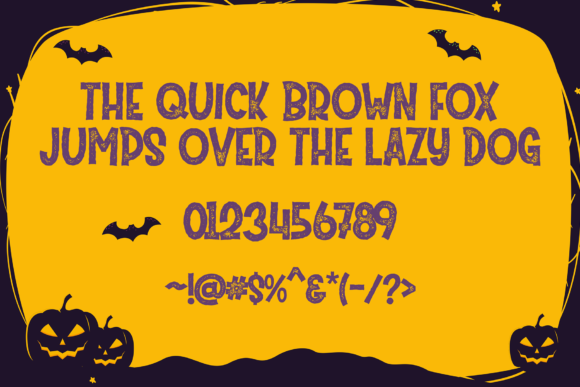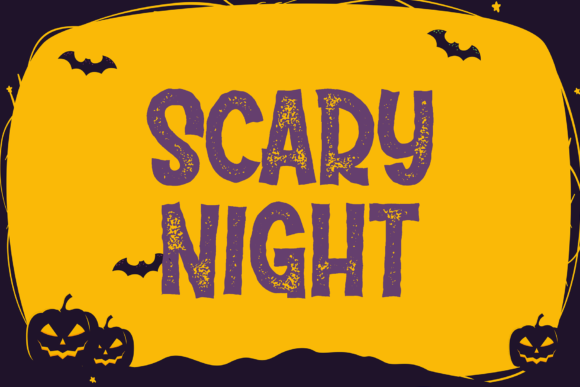
Introduction to Mister Pumpkins Aged Font
As the clock strikes midnight on a crisp autumn evening, the air is filled with the sweet scent of pumpkin spice and the sound of leaves crunching beneath your feet. It’s a moment that sparks creativity, a time to let your imagination run wild and conjure up the magic of the spookiest time of the year. And what better way to capture that essence than with a font that embodies the spirit of Halloween?
Enter Mister Pumpkins Aged Font, a stunning display font that will elevate your creative project to new heights. With its high-quality design and transparent background, this font is a must-have for any designer looking to add a touch of macabre charm to their work. Whether you’re working on a spooky poster, a Halloween-themed website, or a free download for a creative community, Mister Pumpkins Aged Font is the perfect design resource to get you started.
Key Features of Mister Pumpkins Aged Font
- High-quality font with a unique, aged design, perfect for creative projects that require a vintage touch.
- Unique characteristics include distressed textures and subtle wear, adding depth and character to any design.
- Ideal for use in various creative projects, such as graphic design, digital art, and typography-based designs, where a high-quality, aged font is required.
Honest Review: Mister Pumpkins Aged Font
As a designer, I’m always on the lookout for high-quality design resources that can elevate my creative projects. Recently, I stumbled upon the Mister Pumpkins Aged Font, and I’m excited to share my honest review with you.
What works well: ✨ The font has a unique, distressed look that adds a touch of vintage charm to any design. It’s perfect for creating a warm and inviting atmosphere in your project. The high-quality design and transparent background make it easy to use and integrate into your workflow.
What doesn’t work well: ⚠️ The font is a bit limited in its character set, which might be a problem if you need to use it for a complex design. Additionally, the free download option comes with some watermarks, which can be distracting.
Overall, I think the Mister Pumpkins Aged Font is a great design resource for any creative project. With a little creativity, you can work around its limitations and achieve amazing results. If you’re looking for a unique font to add some character to your design, I’d definitely recommend giving it a try.
- Unique, distressed design
- Limited character set
Use Mister Pumpkins Aged Font in conjunction with other design elements, such as images and graphics, to create a unique and eye-catching design. Experiment with different font sizes and styles to add visual interest to your design.
Mister Pumpkins Aged Font is perfect for creative projects, such as infographics, brochures, and posters. It’s also great for designing logos, business cards, and other marketing materials that require a high-quality, unique font.